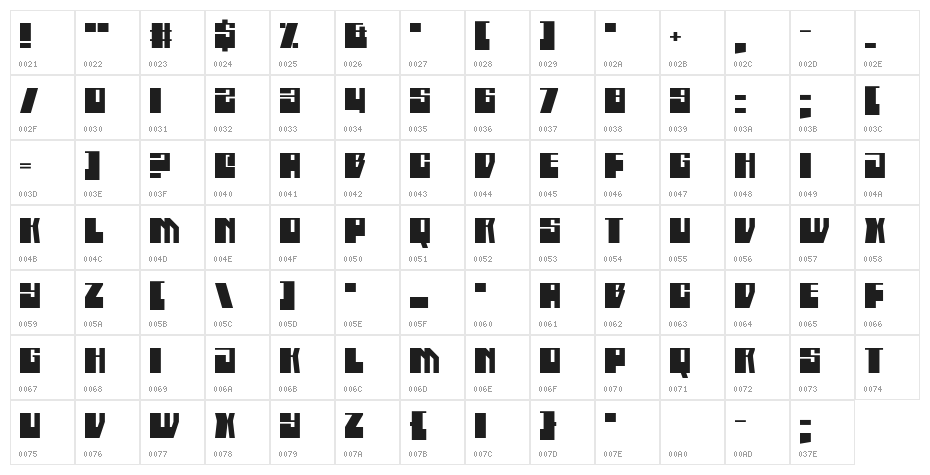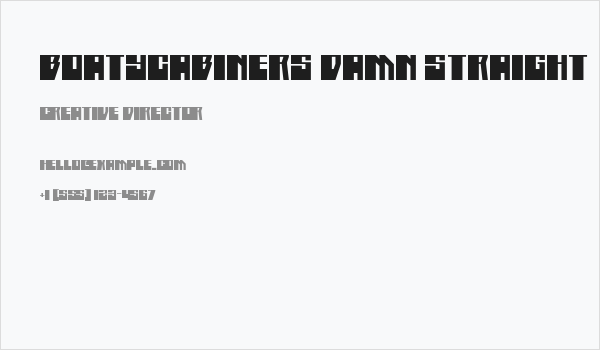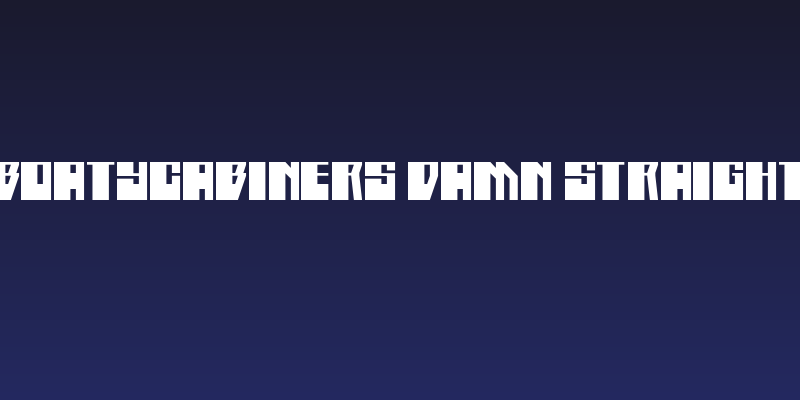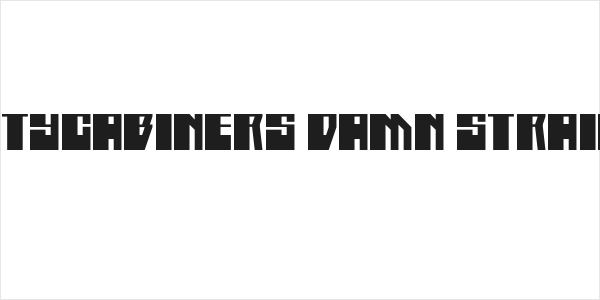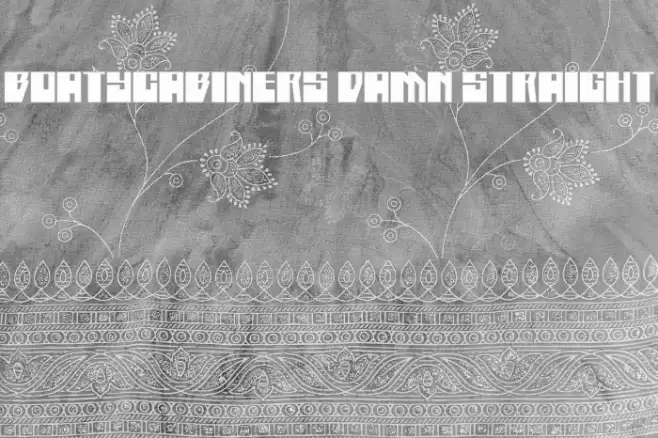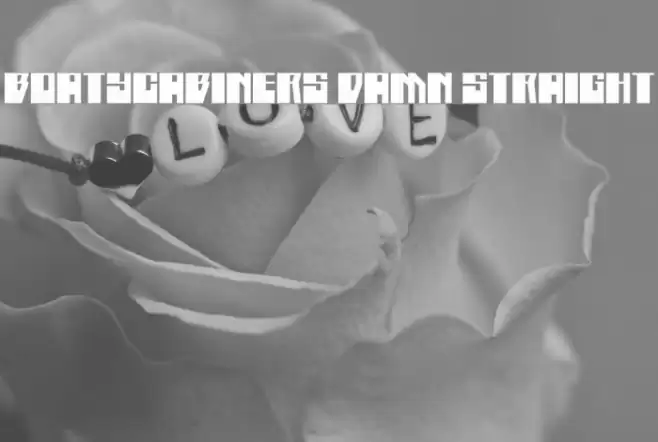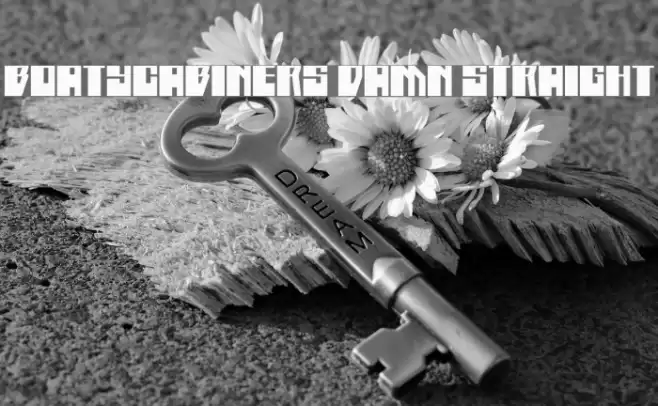
Boatycabiners Damn Straight Font
Boatycabiners Damn Straight Description
This font features a bold, geometric design with a strong emphasis on angular shapes and sharp edges. Each character is crafted with a blocky, robust structure, giving it a powerful and commanding presence. The uppercase and lowercase letters maintain a consistent style, with minimal differentiation between the two, enhancing the font's uniformity. The numerals and special characters follow the same design principles, ensuring a cohesive look across all elements. The font's distinct style makes it ideal for projects that require a modern, edgy aesthetic.
| Proposed Projects | Ideal for branding, posters, album covers, and any design project that requires a modern, edgy aesthetic. |